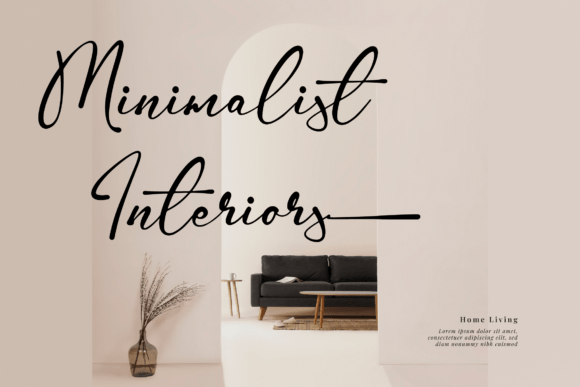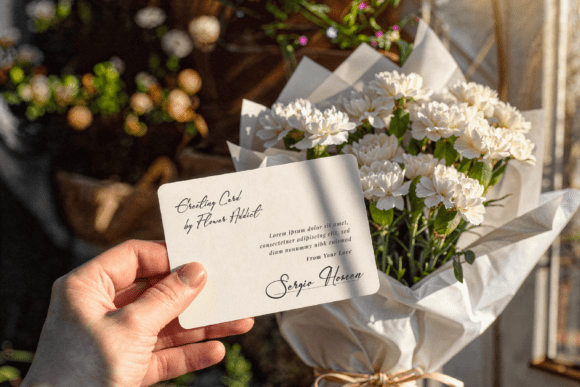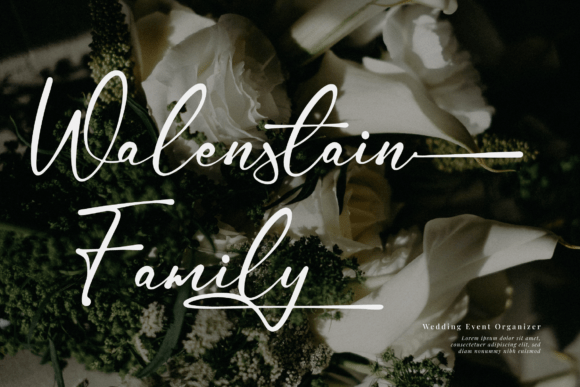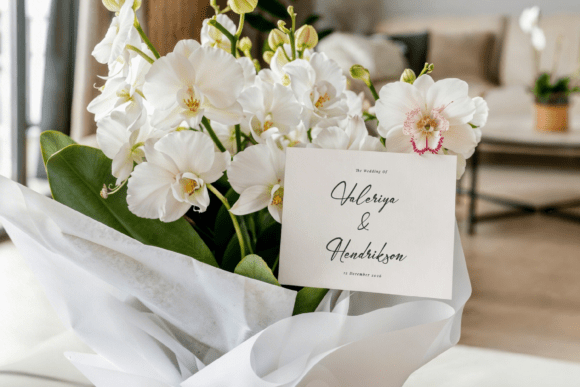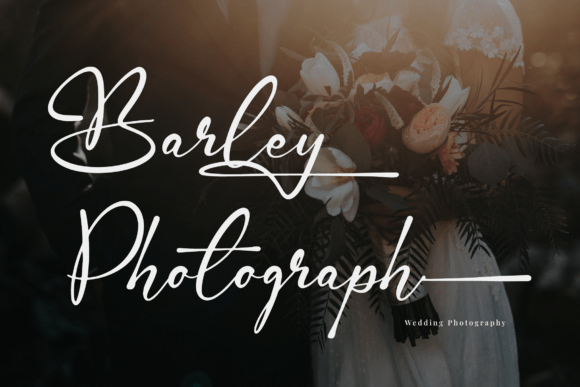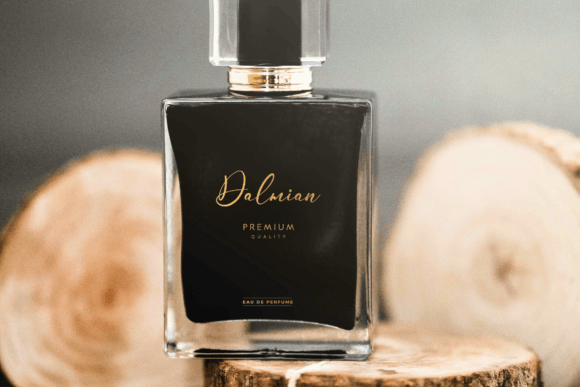
Introducing Gamlowfei Font: Elevate Your Designs with Effortless Elegance
In the world of typography, few fonts manage to convey the essence of luxury and sophistication as effectively as Gamlowfei. This exquisite signature script is designed to add a personal, high-end touch to your work, making it the ultimate choice for designers and crafters who aim to create stunning, high-end visuals. With its long, flowing descenders and fluid, hand-inked strokes, Gamlowfei mimics the sophisticated handwriting of a professional stylist, turning every word into a graceful statement of style and class.
The Characteristics of Gamlowfei Font
Gamlowfei’s unique charm lies in its distinctive characteristics. The font features:
- Long, flowing descenders: These add a touch of drama and elegance to your text, making it perfect for luxury branding and high-fashion editorial layouts.
- Fluid, hand-inked strokes: The font’s fluid strokes give it a natural, handwritten feel that’s reminiscent of professional calligraphy.
- Sophisticated letterforms: Each letter is carefully crafted to convey a sense of refinement and poise, making Gamlowfei ideal for wedding stationery, photography watermarks, and other high-end applications.
Perfect for Luxury Branding and High-End Designs
Gamlowfei is more than just a font – it’s a design statement. Its elegant, refined aesthetic makes it perfect for:
- Luxury branding: Use Gamlowfei to create sophisticated logos, business cards, and marketing materials that exude high-end style.
- Wedding stationery: Add a touch of romance and elegance to your wedding invitations, save-the-dates, and other stationery with Gamlowfei.
- Photography watermarks: Protect your images with a stylish watermark that complements your photography style.
- High-fashion editorial layouts: Use Gamlowfei to create stunning headlines, captions, and pull-quotes that elevate your fashion editorials.
Why Choose Gamlowfei Font?
With so many fonts available, why choose Gamlowfei? Here are just a few reasons:
- Unique and distinctive: Gamlowfei’s elegant, refined aesthetic sets it apart from more common fonts.
- Versatile: Use Gamlowfei for a wide range of design applications, from luxury branding to wedding stationery.
- Easy to read: Despite its elegant, cursive style, Gamlowfei remains highly legible, making it perfect for body text and headlines.
Tips for Using Gamlowfei Font
To get the most out of Gamlowfei, follow these design tips:
- Use it sparingly: Gamlowfei is a statement font – use it to add emphasis and elegance to your designs, rather than overusing it.
- Pair it with contrasting fonts: Combine Gamlowfei with simpler, sans-serif fonts to create visual interest and contrast.
- Experiment with colors and textures: Gamlowfei looks stunning in a range of colors and textures – don’t be afraid to experiment and find the perfect combination for your design.
In conclusion, Gamlowfei is a truly exceptional font that’s perfect for designers and crafters who want to add a touch of luxury and sophistication to their work. With its elegant, refined aesthetic and versatile design, Gamlowfei is the ultimate choice for high-end branding, wedding stationery, photography watermarks, and fashion editorials. So why wait? Download Gamlowfei today and elevate your designs to new heights of style and elegance.